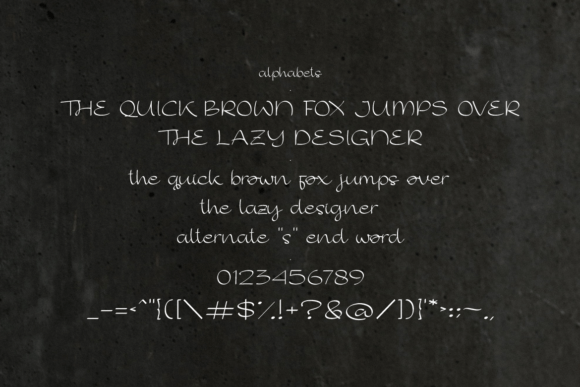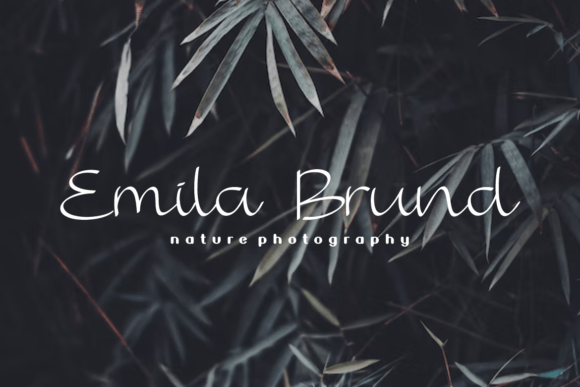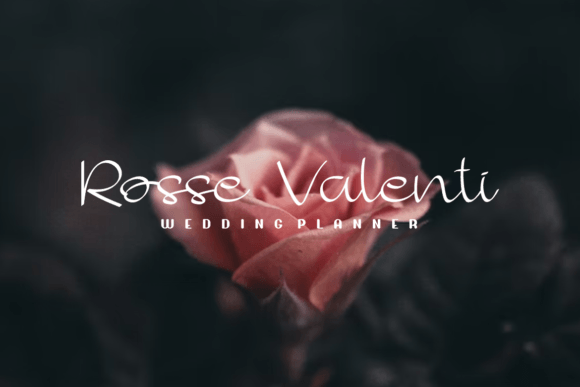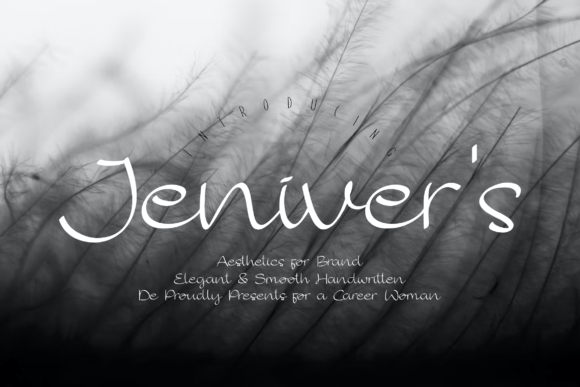
Introduction to Jenivers Font
Jeniver’s is an elegant, classy, and modern handwritten font.
It’s a great typeface for fashion, apparel projects, signature, album covers, logos, branding, magazine, social media, & advertisements, but also works great for other projects .
Key Features of Jenivers Font
Why Choose Jenivers Font?
Jenivers Font offers exceptional quality and versatility, making it a valuable addition to your design toolkit. Whether you’re creating for personal projects or commercial use, Jenivers Font delivers professional results.